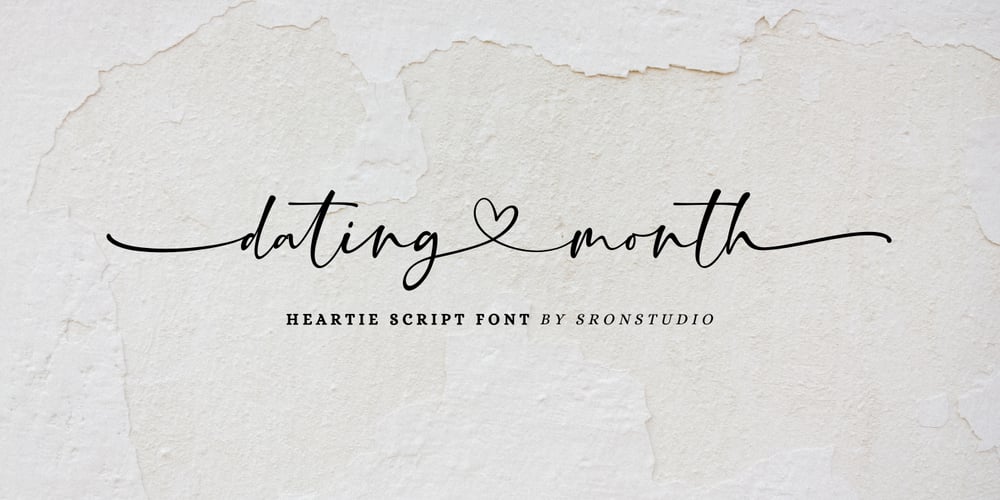
Dating Month Font Family was designed by Muhamad Yusron Billah and published by Sronstudio. Dating Month contains 1 styles and family package options. Introducing “Dating Month,” a charming romantic font that encapsulates the essence of love and affection. This font is designed to evoke emotions of warmth and tenderness, making it the perfect choice for projects that celebrate love, relationships, and special occasions. With its graceful letterforms and delicate curves, “Dating Month” adds a touch of elegance and intimacy to any design. Whether you’re creating wedding invitations, love letters, or any project that requires a romantic touch, this font will beautifully convey your message. Its versatility allows it to be used in various creative contexts, from branding to social media graphics. Embrace the romantic spirit with “Dating Month” and let love shine through your designs.Features: Ligatures Swashes alternate Heartie alternates Uppercase and lowercase letters Multilingual, numerals, and punctuation